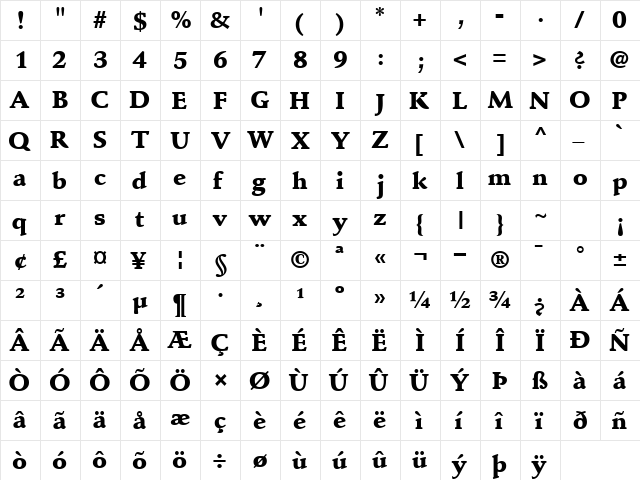
DeutchBlackSSK Regular
Design Context for DeutchBlackSSK Typeface
DeutchBlackSSK offers clean, dependable letterforms without strong stylistic allegiance, making it a practical choice for designers who need flexibility.
Pro Tip: Use DeutchBlackSSK in both headline and body roles to test its range before committing to a single application.